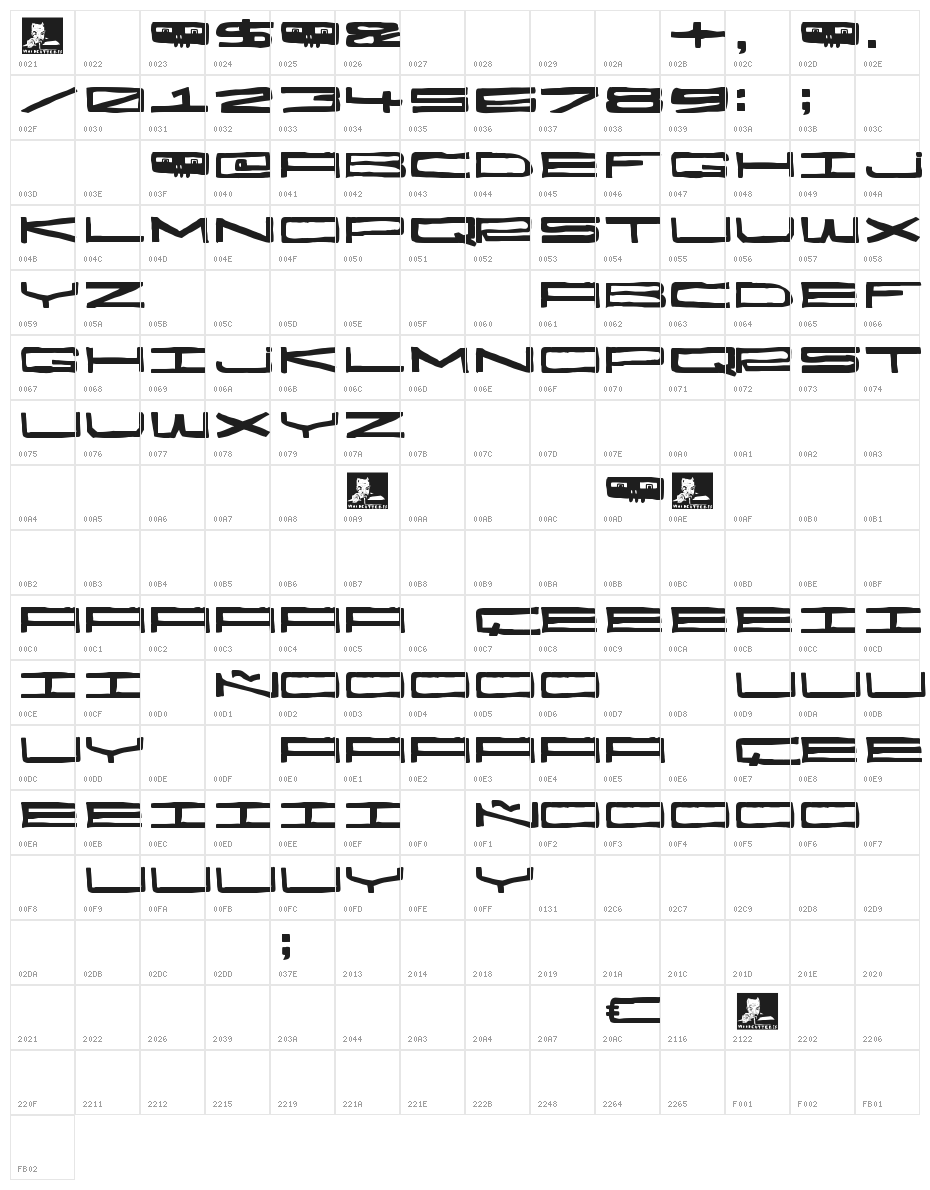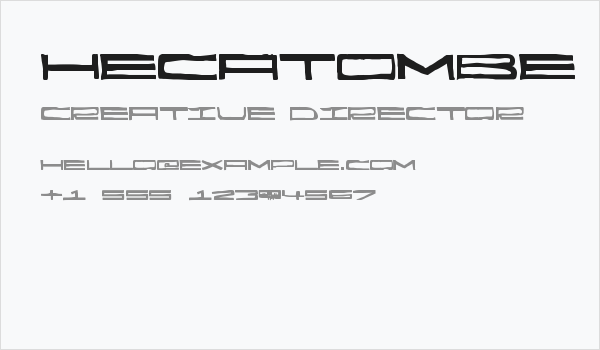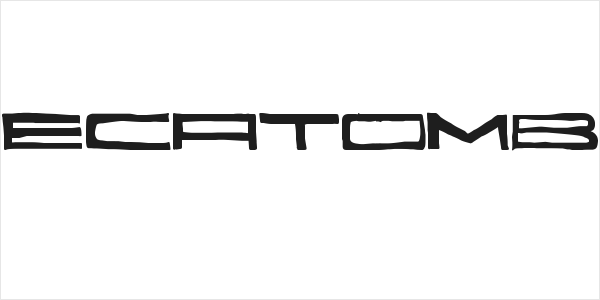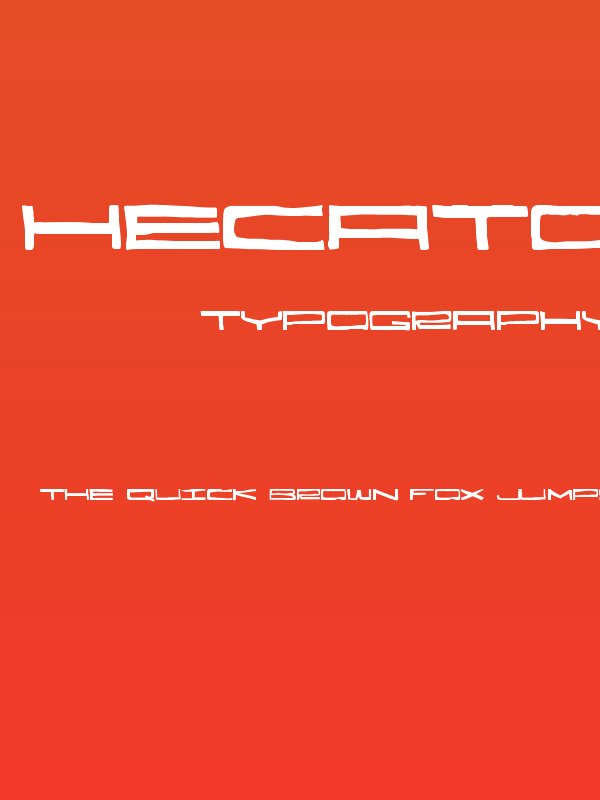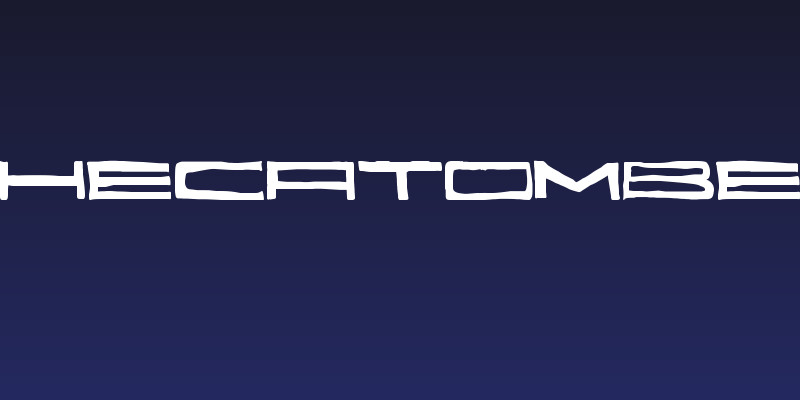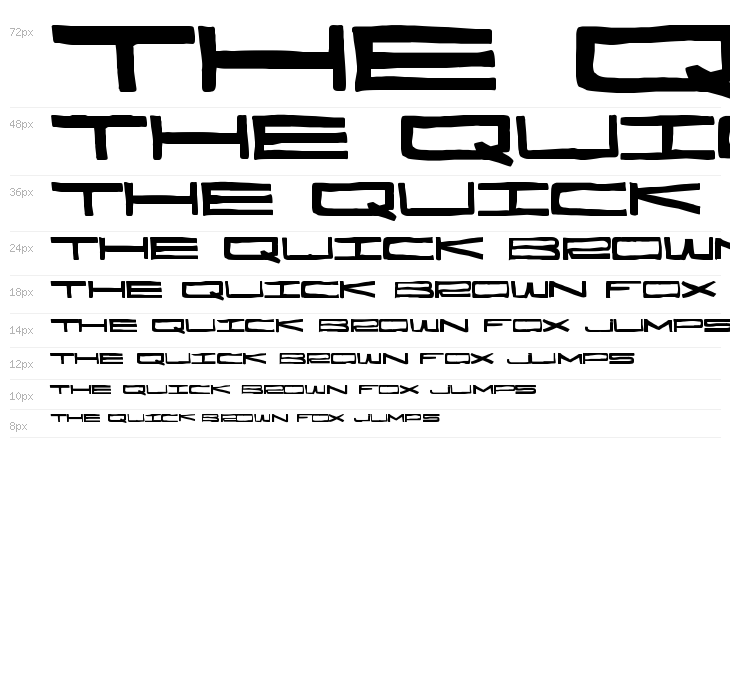
Hecatombe Font
Hecatombe Description
This font features a bold and futuristic design with a distinct geometric structure. The characters are constructed with sharp angles and a consistent stroke width, giving it a mechanical and industrial feel. The uppercase and lowercase letters maintain a uniform style, while the numerals and special characters integrate seamlessly into the overall design. The font's unique aesthetic is enhanced by its angular lines and precise edges, making it stand out in any application. Its boldness and clarity make it suitable for impactful visual statements.
| Overall Style | Futuristic |
| Proposed Projects | Ideal for sci-fi themed projects, video game titles, technology branding, and futuristic posters. |